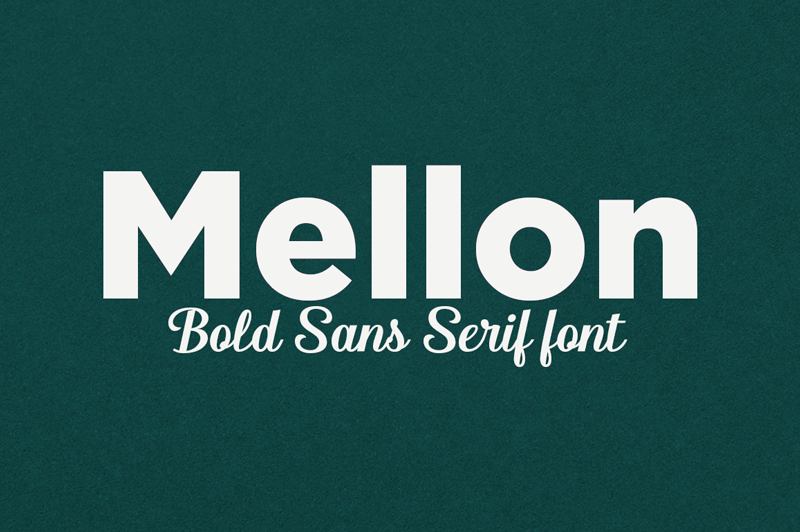
Mellon Font
Mellon Font is modern Basic font. Made for any professional project branding. Made from font designer Aqeela Studio. it will make your design project more beautiful. It is the best for branding, printing, wedding and quotes. Every letter has a unique and beautiful touch.
Mellon Sans serif Font